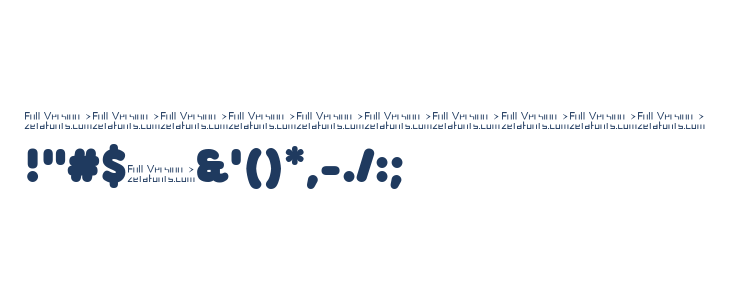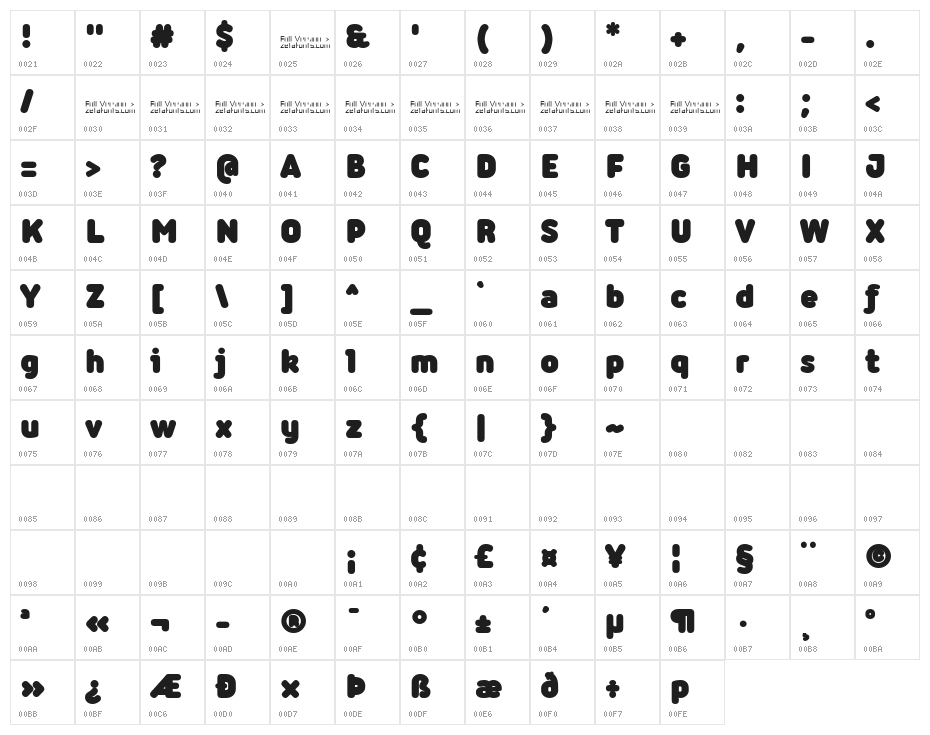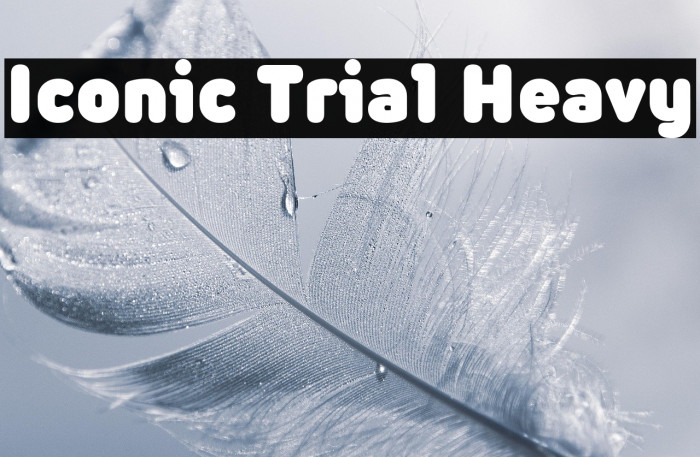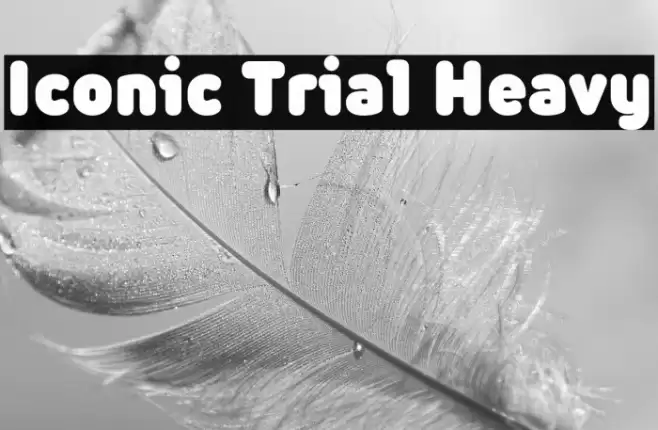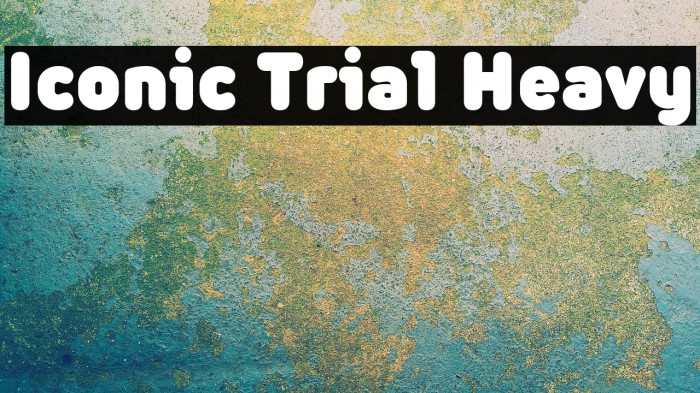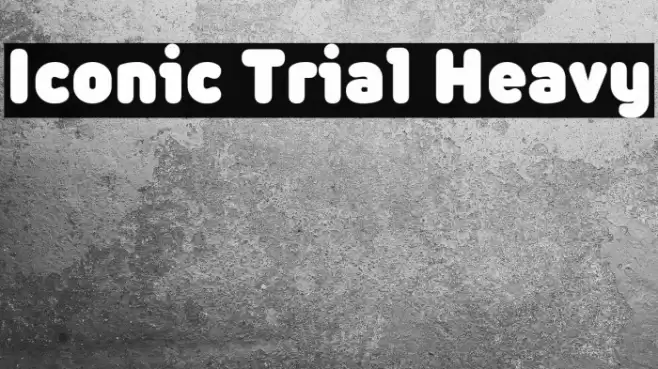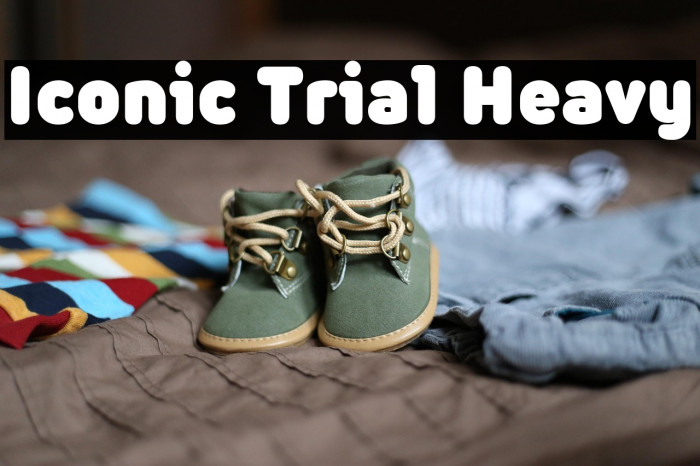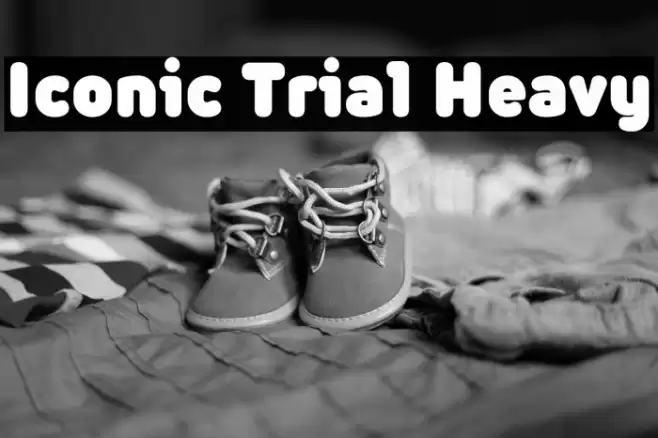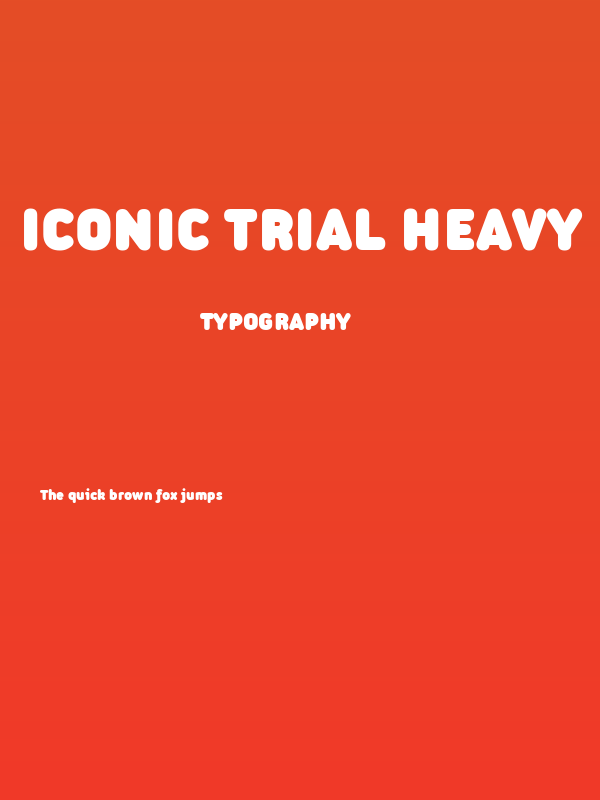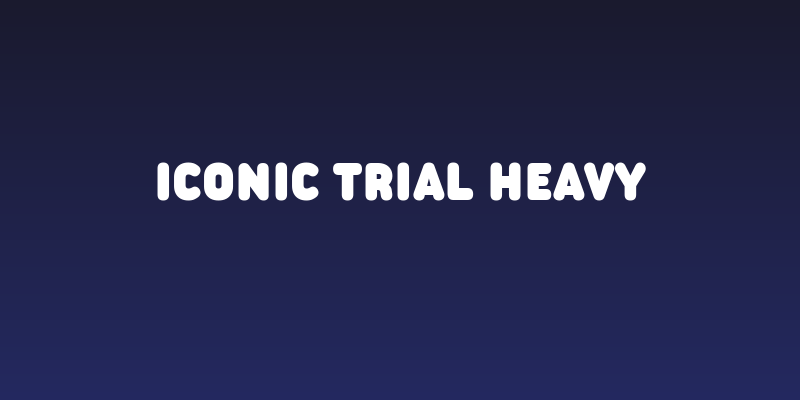
Iconic Trial Heavy Font
Iconic Trial Heavy Description
This font features a bold, rounded style with a playful and approachable appearance. The characters are uniformly thick, giving it a heavy and substantial look. The rounded edges soften the overall feel, making it suitable for friendly and informal designs. The uppercase and lowercase letters maintain consistent proportions, ensuring readability. The numerals and special characters follow the same rounded and bold aesthetic, providing a cohesive look across all glyphs. This font's style is ideal for creating a strong visual impact while maintaining a sense of warmth and approachability.
| Overall Style | Playful, Modern |
| Proposed Projects | Ideal for children's books, playful branding, posters, and social media graphics. |